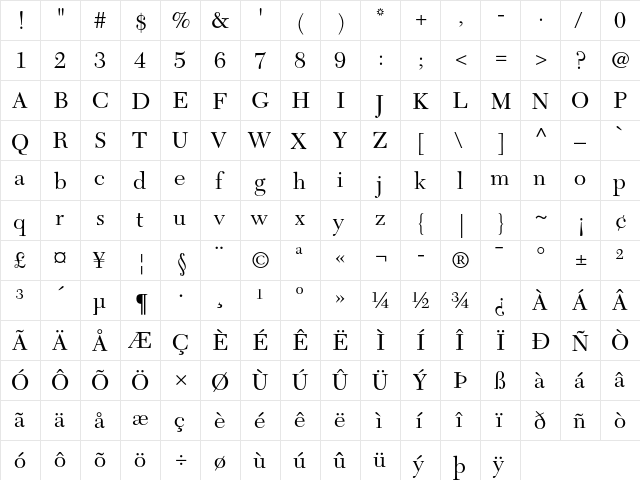
New Caledonia Medium
Design Context for New Caledonia Typeface
New Caledonia takes a measured approach to typography — its balanced proportions and neutral character make it a reliable workhorse for both digital and print work.
Pro Tip: Use New Caledonia in both headline and body roles to test its range before committing to a single application.